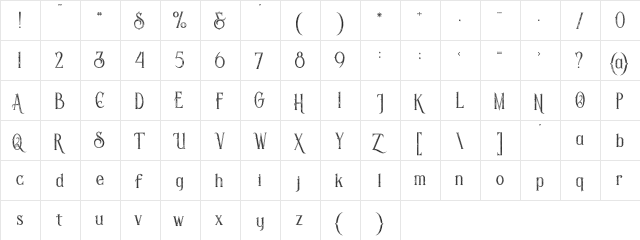
Savana Inline Grid Grunge Inline Grid Grunge
Design Context for Savana Inline Grid Grunge Typeface
Savana Inline Grid Grunge embraces imperfection — its rough, textured character adds raw authenticity to designs that want to feel lived-in and unconventional.
A strong fit for alternative music projects, graffiti-adjacent design, and anything that deliberately resists polish.
Pro Tip: Use Savana Inline Grid Grunge at larger sizes where the texture and irregularity of each letterform can be clearly seen — it loses its character at small sizes.